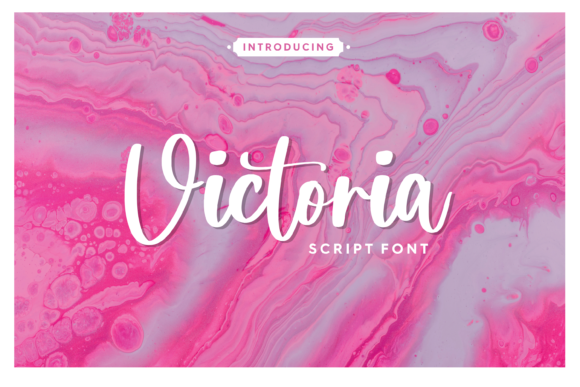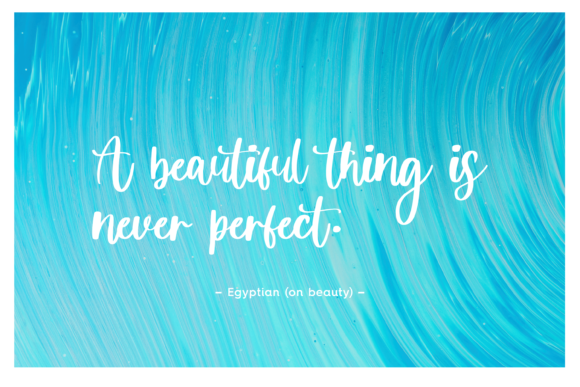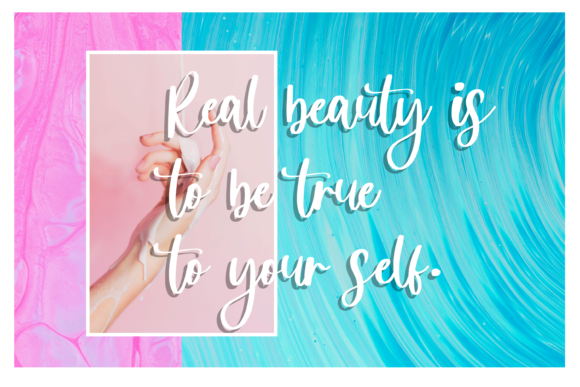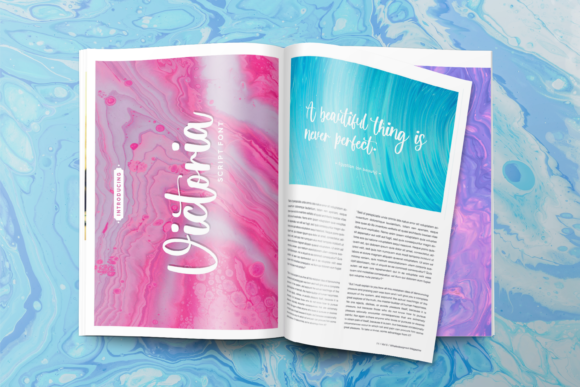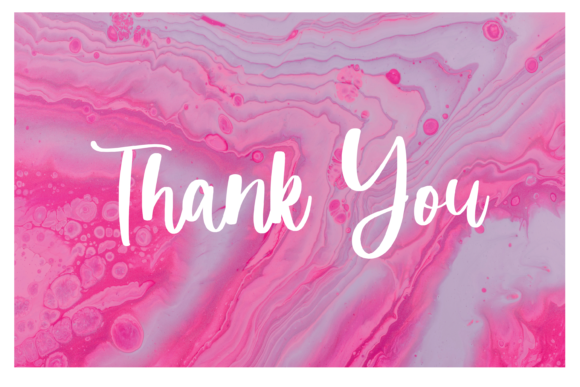
Victoria Font
About Victoria Font
Victoria embodies fun, quirkiness and authenticity. This enchanting handwritten font will turn any creative idea into a true standout.